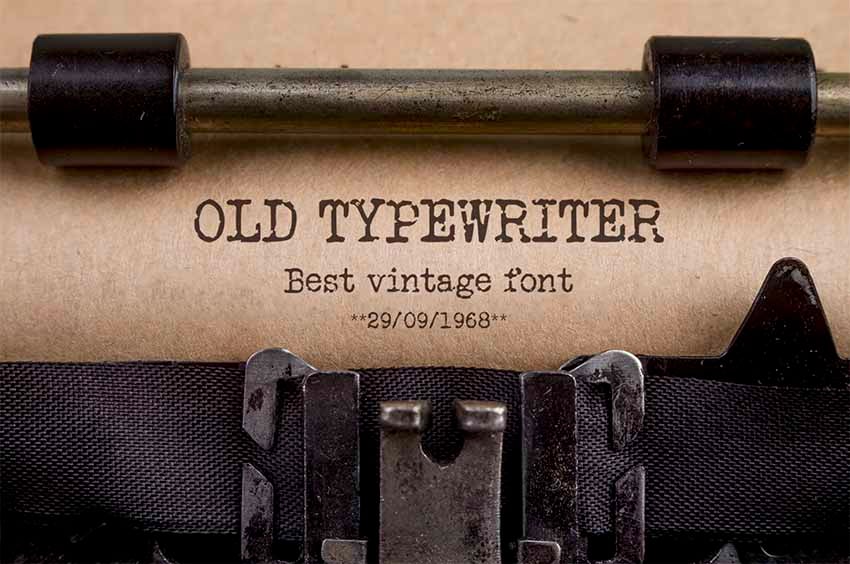
36 Stunning Old Style Fonts (Old Style Typeface Examples to Download)
What Is the Old Style Serif Typeface Classification?
So what is the Old Style serif type classification—or what is a type classification at all? Think of it as a means of sorting type into different "types". For example, fonts are often broadly categorized as serifs or sans serifs, as a means of describing parts of their design.
There's more to type classification than serifs vs. sans serifs. For example, there are many different classifications for serif typefaces. Old Style is one of those classifications. As an example, let's compare two different serif type classifications: Old Style and Didone.
Both of these typefaces have serifs—the extended lines at the end of the font's stroke. However, they are each visually quite different. In the Didones, we see a straight serif. In the Old Style type, we see a more tapered serif that looks more like a wedge. Notice the difference in the strokes too. Old Style serif fonts lack the stark contrast that we see in Didones. We'll often see more of a tilt in the type's axis, as well.
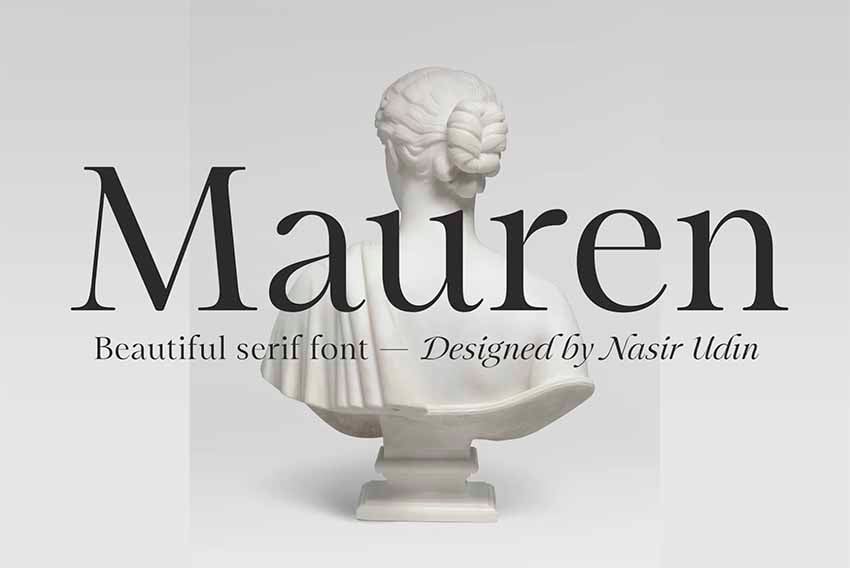
Old Style serif fonts have a beautiful, timeless aesthetic that can work in a wide variety of design situations. Some popular Old Style fonts include Garamond, Goudy, Palatino, and Minion. Modern fonts often draw inspiration from Old Style typefaces (as well as the Transitionals, where you'd see fonts like Times New Roman). There's something very classy about serif type—it's not uncommon to see them in newspapers, magazines, and in the interior of your favorite book.
Stylish Old Style Serif Fonts From Envato Elements
Let's take a look at some of the beautiful serif fonts over on Envato Elements. Many of them are very clearly inspired by Old Style serif fonts, while others take hints from the Old Style serif aesthetic. Regardless of the approach, they are an elegant addition to any font library. Enjoy the type inspiration or consider adding one of these fonts to your collection today.
1. Artifex: Smooth Old Timey Fonts (OTF)
Artifex: Smooth Old Timey Fonts is a versatile and stylish addition to any font collection. This font download also includes eight different weights, making it a perfect fit for a wide variety of design situations.
2. Wensley: Modern Old Fashioned Fonts (TTF, OTF, Web Font Kit)
Isn't Wensley: Modern Old Fashioned Fonts classy? Pair it with your photography, use it in your next magazine design, or use it to set copy in your next layout design. It's a modern take on a classic Old Style typeface.
3. Carra Retro Font Family Pack (TTF, OTF, Web Font Kit)
Here's another font family to check out. Carra Retro Font Family Pack includes multiple weights, which makes it a great Old Style font example for your font library. It works great at larger sizes, but could work well as body copy too.
4. Quixote Classic Serif Old Style Font (OTF, TTF, Web Fonts)
This typeface deviates from what we'd expect from Old Style fonts, but we can see a little inspiration here too. That's part of the beauty of type design—we can take from more than one influence to come up with something awesome.
5. Eadita Luxury Old Style Serif Font Family ( TTF, OTF, Web Font Kit)
Aren't the serifs on this font visually interesting? This luxury Old Style serif makes for an elegant aesthetic, perfect for a number of design projects. Download this one today.
6. Moisses: Creative Old Style Typeface Example (TTF, OTF, Web Font Kit)
Check out this stylish typeface. The "M" here creates a lot of visual interest. This font family also includes multiple weights for your experimentation. If you're looking for something different, give this Old Style typeface example a look.
7. Earning: Bold Old Style Font (OTF, TTF)
This font is bold, and we don't need the imagery here to clearly associate this one with business. Try this Old Style font out in a headline or title in your next design project.
8. Saint Capital: Timeless Font in Old Style (OTF, TTF)
Beautiful and versatile—that describes this lovely font in Old Style. It would be a lovely fit for a number of book projects. It has the perfect readability for both large and smaller type treatments.
9. Aara Top-Class Old Fashion Fonts (OTF, TTF, WOFF, WOFF2)
There's a slight variation in the strokes of this font that makes it stand out from the others. Less is often more; those slight tweaks make an impact when you give this typeface a try.
10. Gorgone Versatile Old English Font (OTF, TTF)